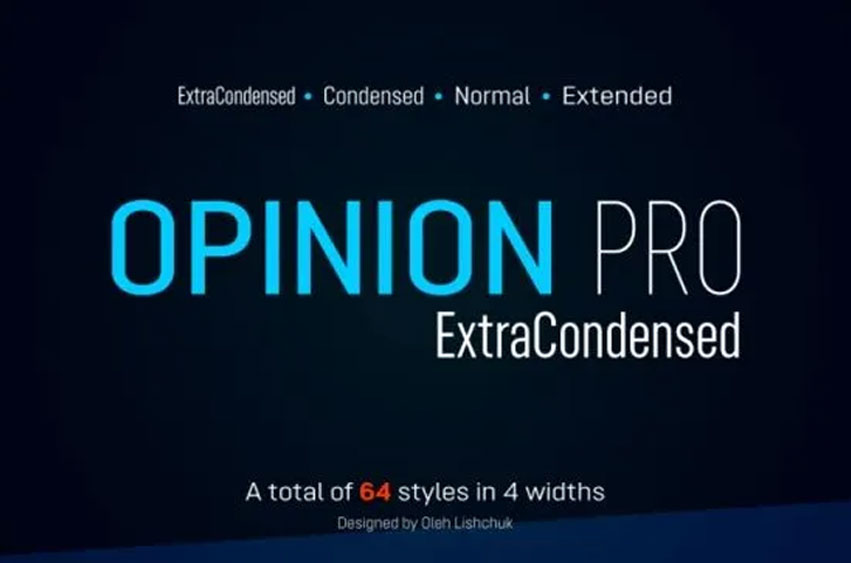
Opinion Pro Font
Opinion Pro Font is an organic grotesque sans serif typeface with a large x-height that comes in 64 unique styles. The font family of Opinion Pro comes in four sizes with 8 weights each, and it also includes the appropriate italic.
This font is trim and straight-edged which makes it perfect for display typefaces, paragraph typefaces as well as technical purposes like labeling or wayfinding of any kind.
Opinion Pro not only has a great variety of languages, but it includes Latin-based European ones and even the major Cyrillic ones as well as Kazakh. OpenType contains four groups of digits and ordinals.